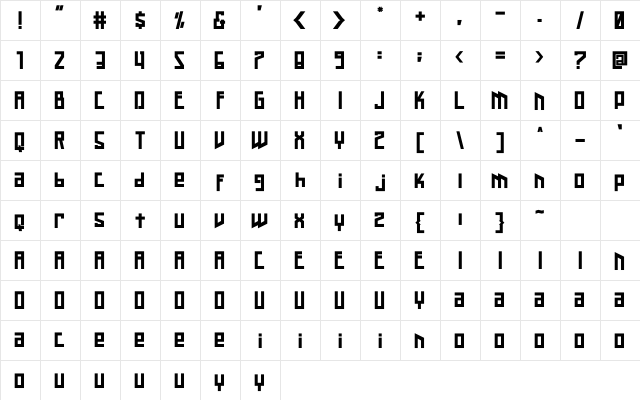
Good Vibes Bold
| Designer | Christ Desmon and Ahmad Syarif Afandi |
Design Context for Good Vibes Typeface
Good Vibes is a composed and adaptable typeface that performs quietly and consistently across a wide range of design contexts. The heavy weight commands attention and anchors typographic hierarchies.